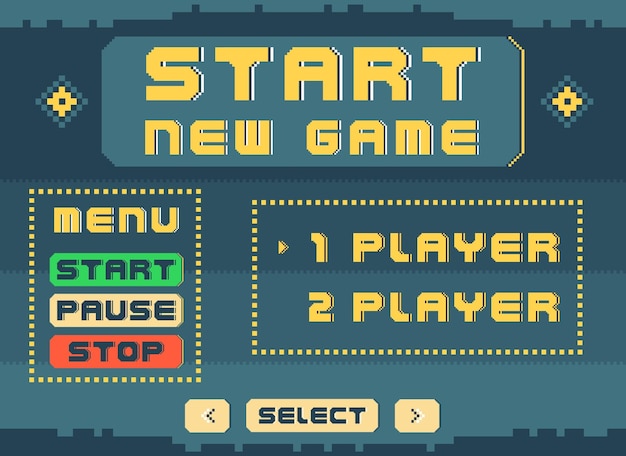
Start game menu pixel art console dashboard display 8 bit arcade player video gaming font retro computer graphic style gui panel buttons with digital labels vector background